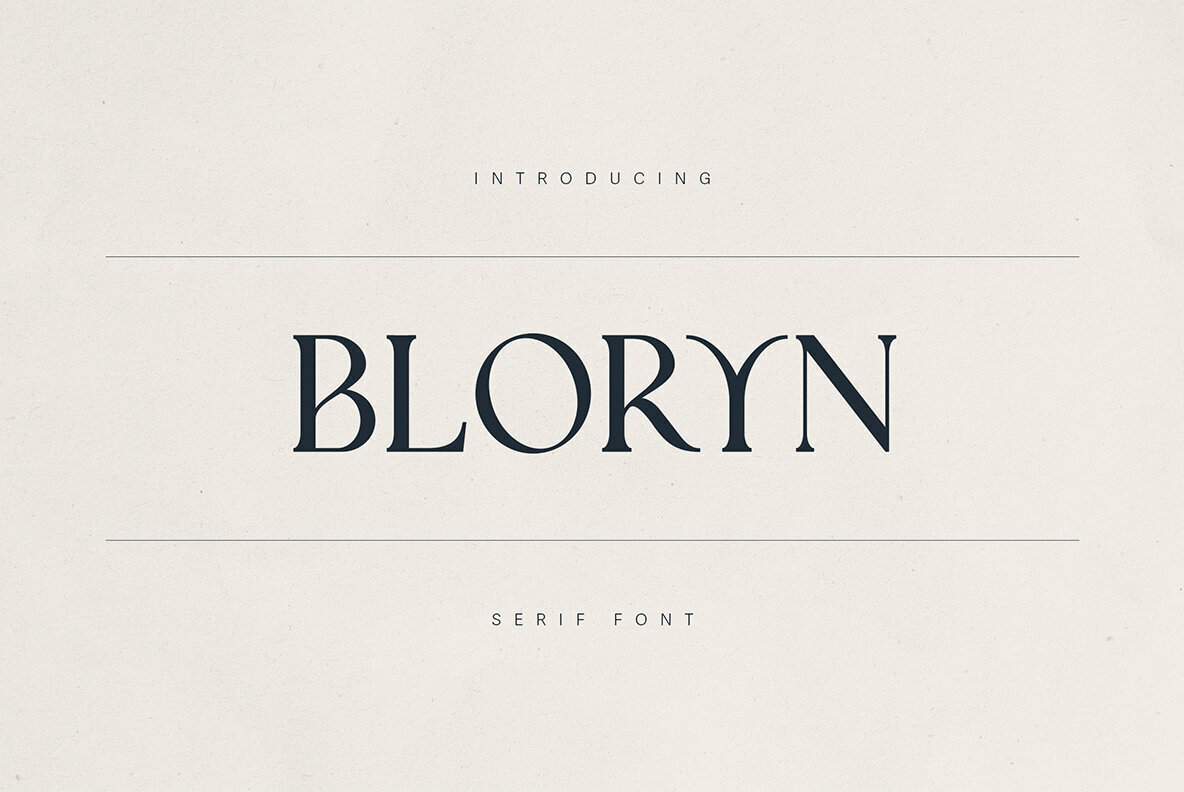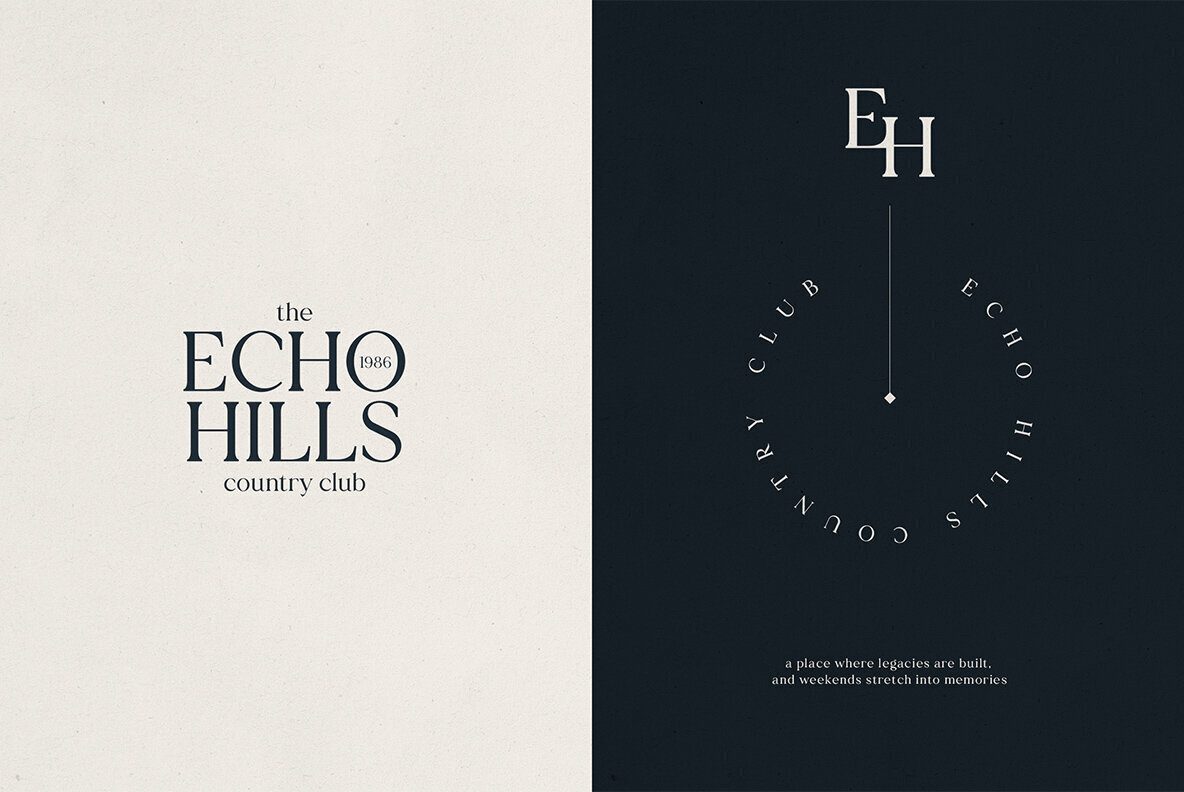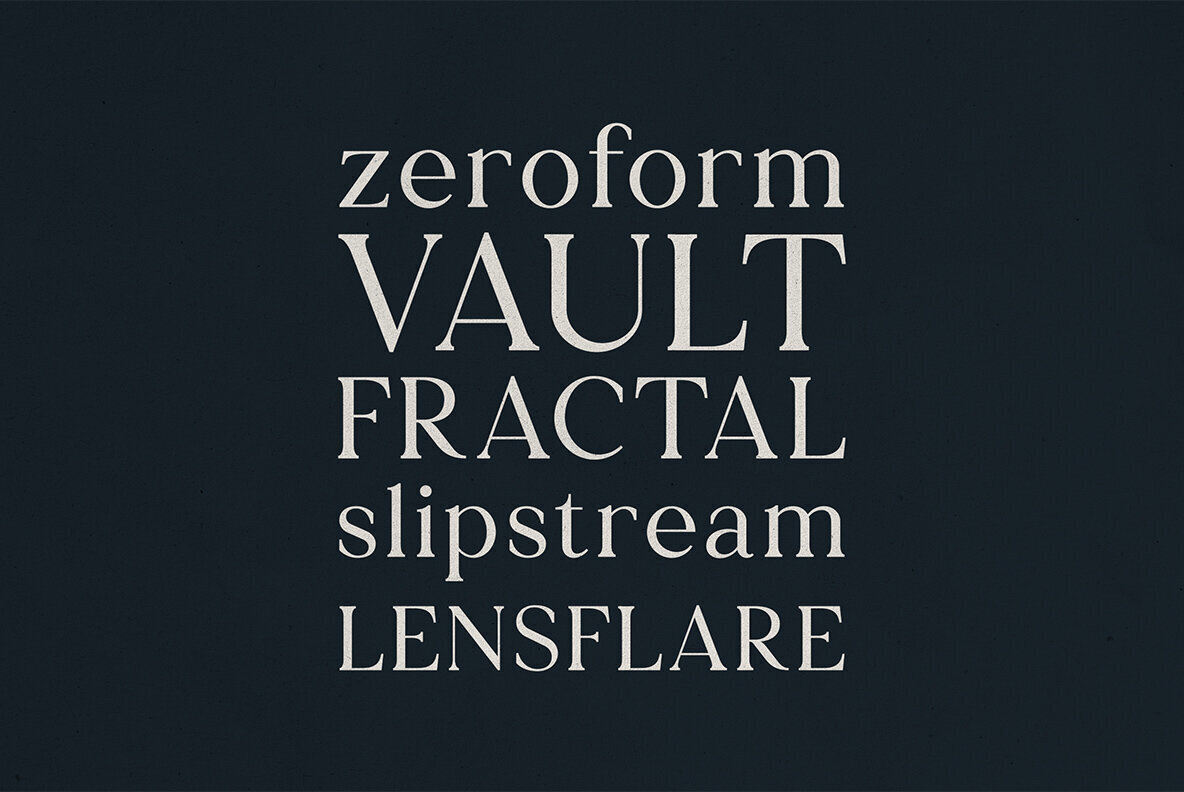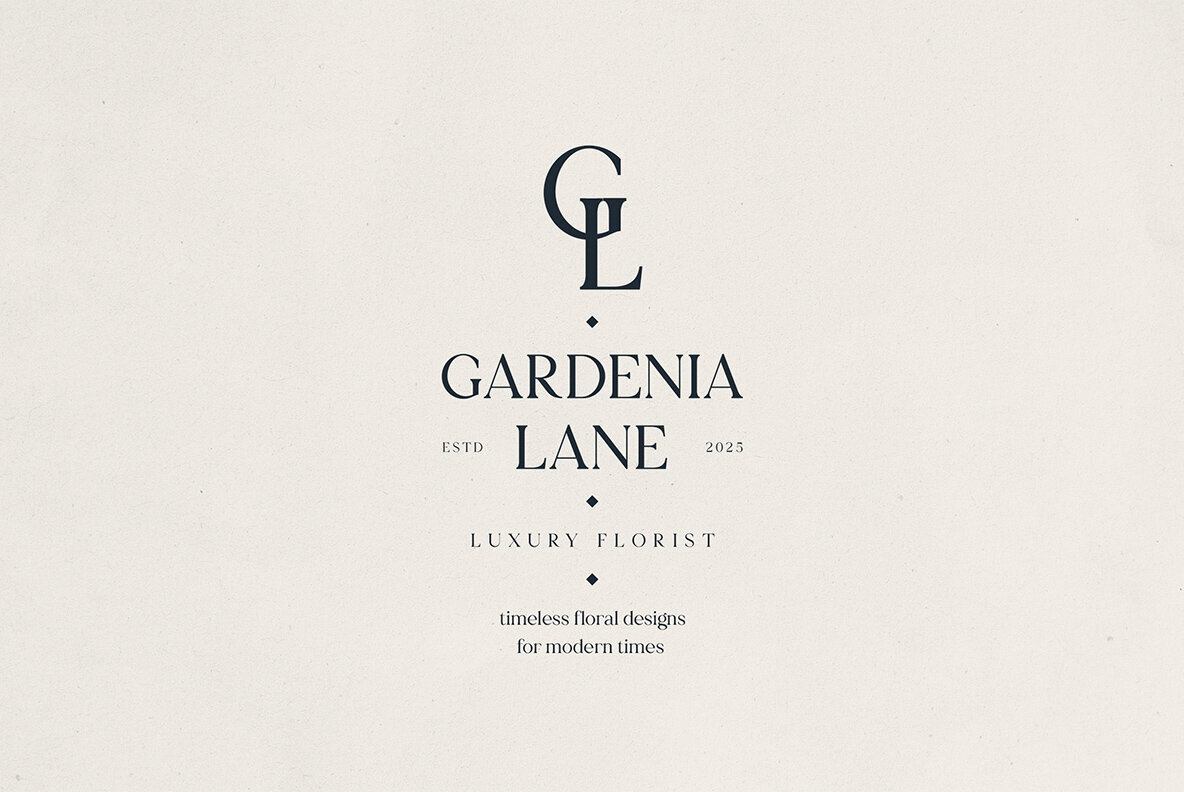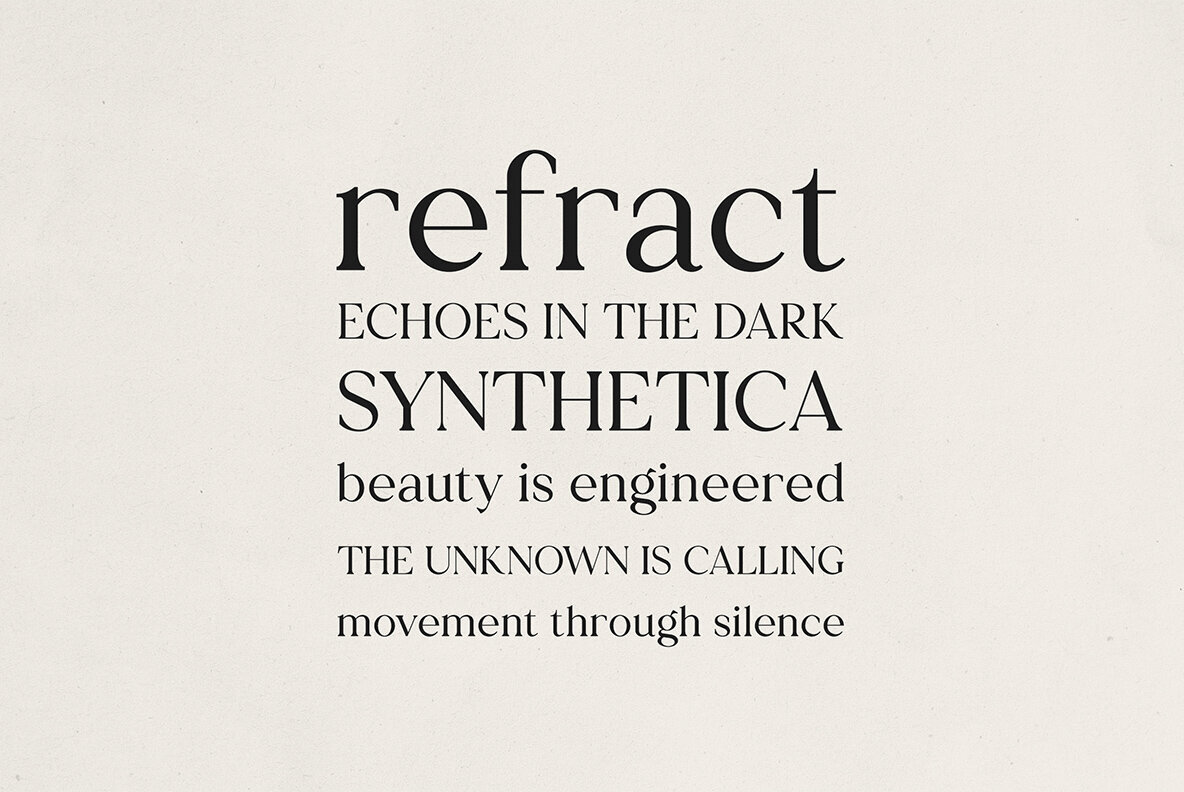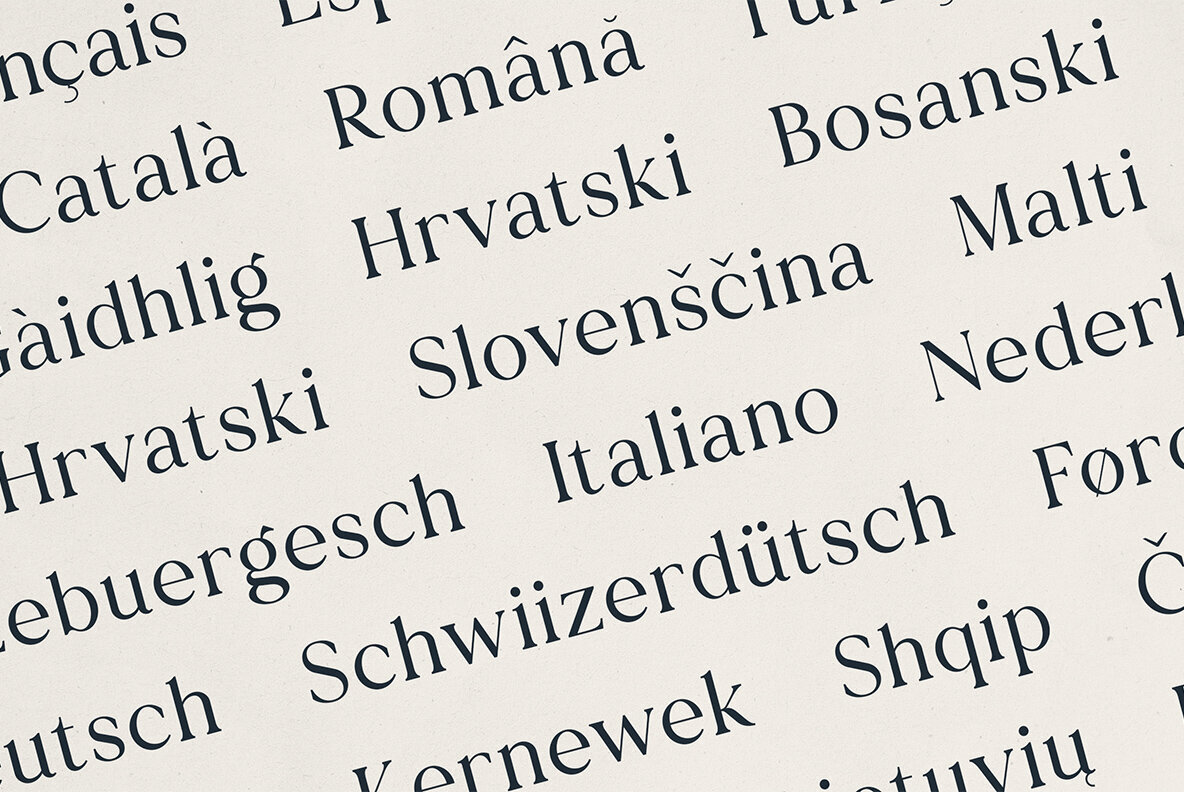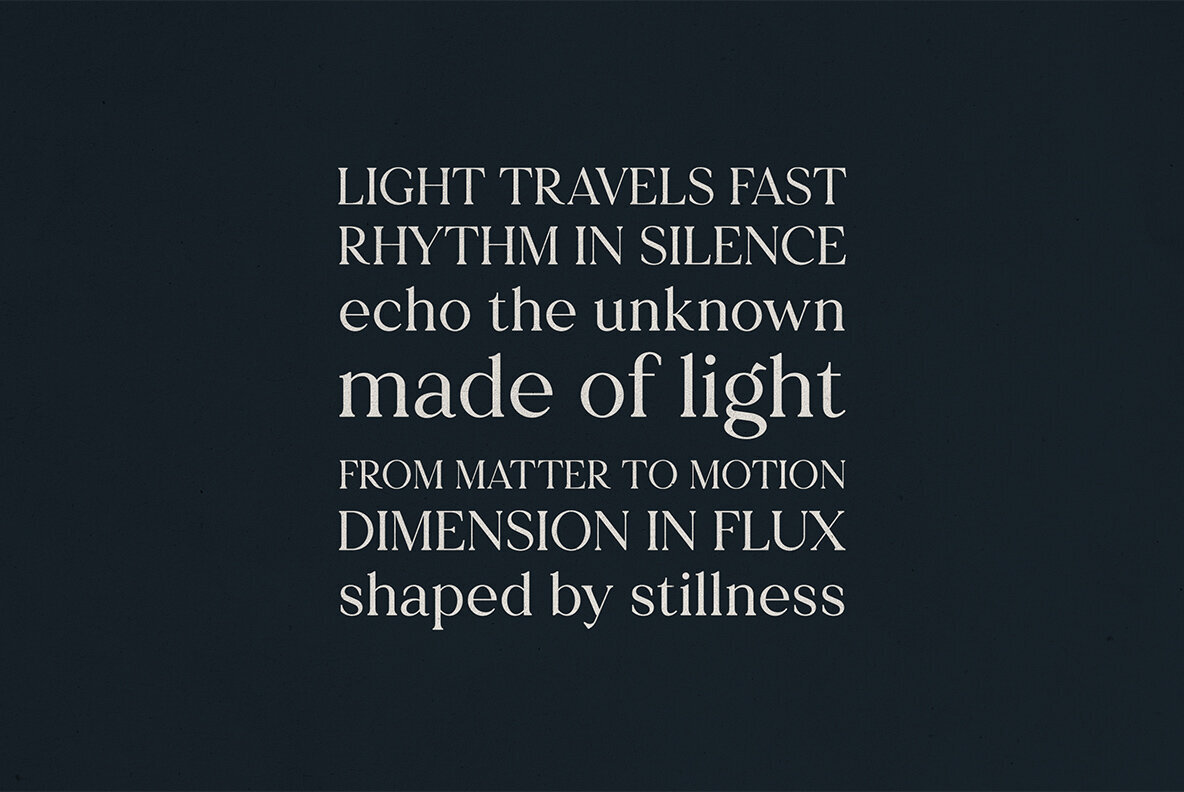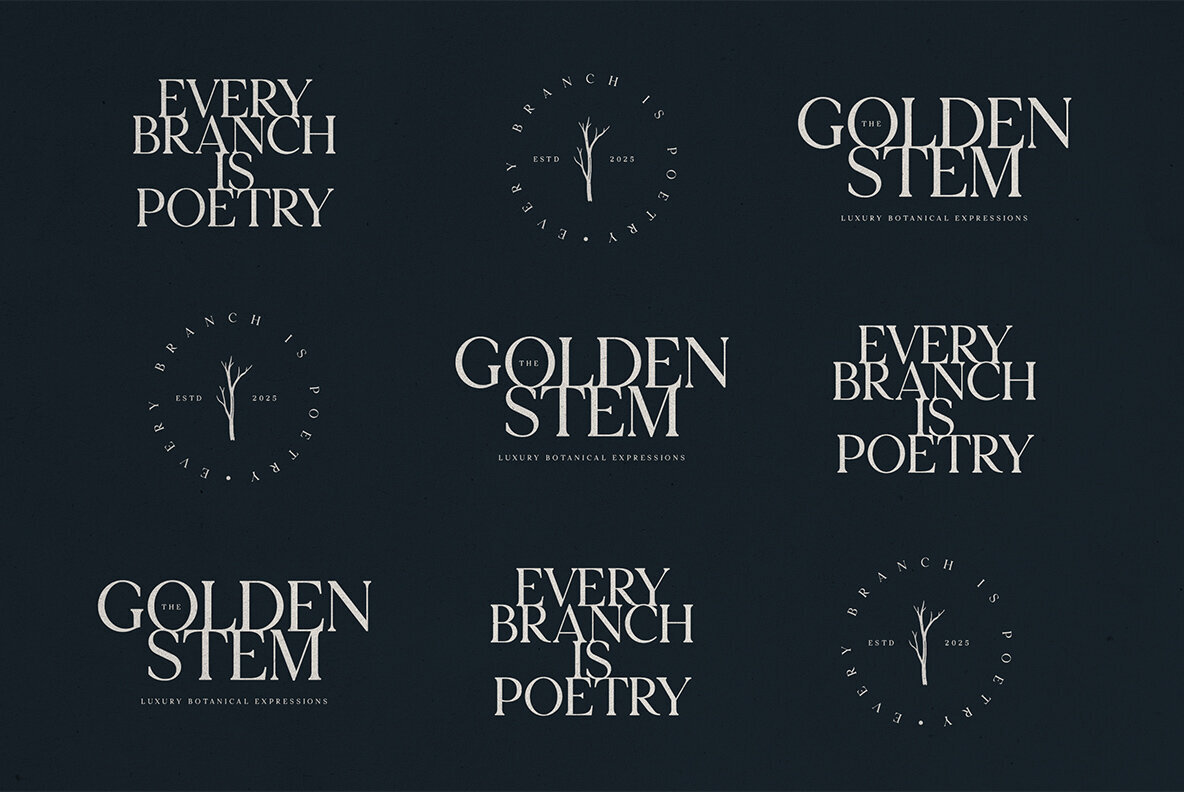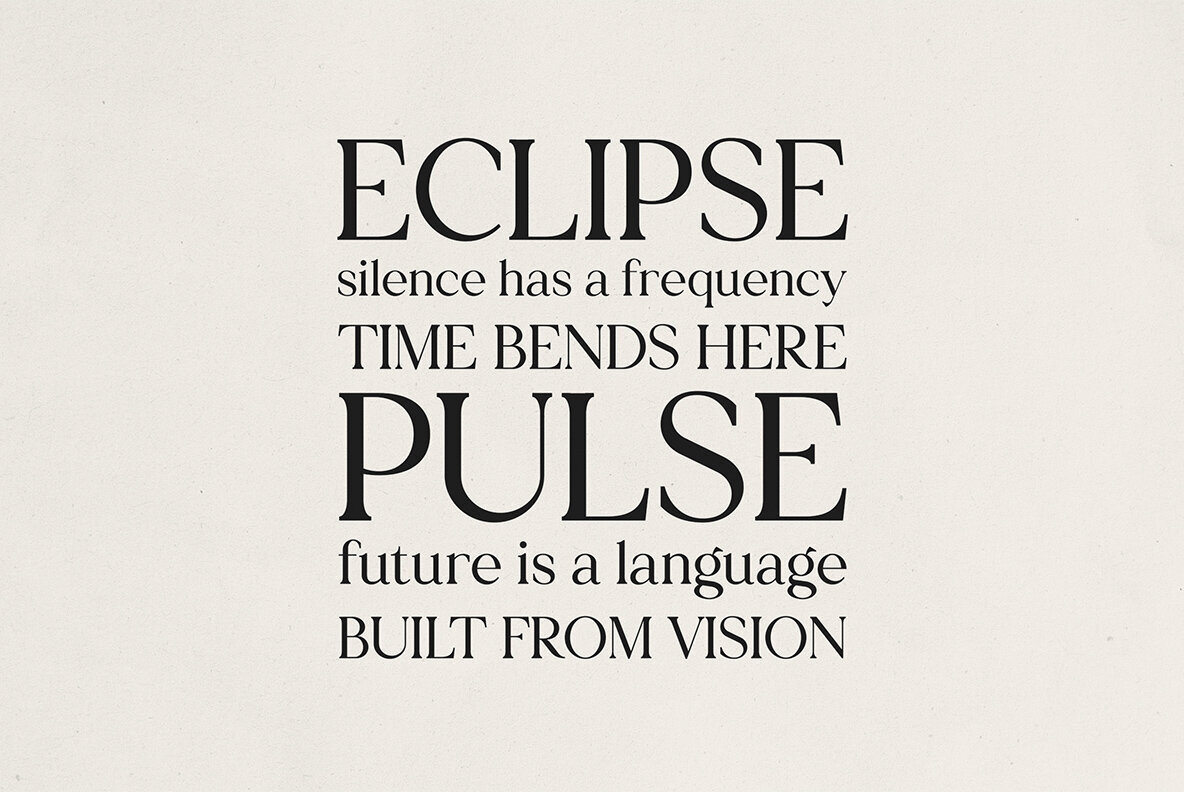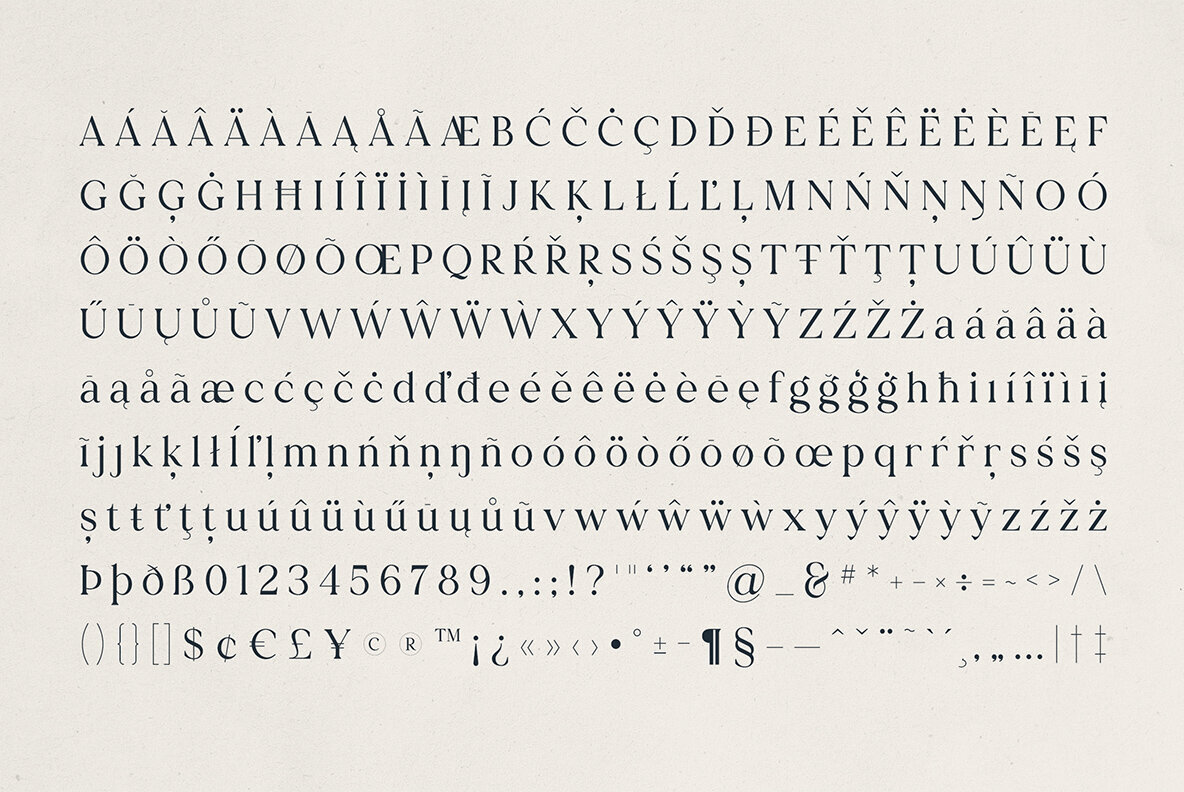
Bloryn Font
Bloryn
Bloryn is a high-contrast serif font that seamlessly merges classic elegance with contemporary curves, making it an ideal choice for luxury branding, editorial design, and compelling visual storytelling. Its versatility allows it to deliver both sophistication and readability, perfect for logos, headlines, packaging, and identity systems. With its beautifully sculpted letterforms, distinctive terminals, and refined stroke contrast, Bloryn stands out in both minimalist and ornate design settings. Whether you're crafting a premium brand or designing thoughtful digital content, Bloryn enhances your project with personality without overshadowing your message. Bring timeless charm and a modern edge to your next project with Bloryn— a font that communicates with poise and presence. It's the perfect choice for luxury fashion brands, boutique packaging, wedding designs, editorial spreads, lifestyle blogs, and high-end product visuals. Supports over 85 languages including Afrikaans, Albanian, Basque, Czech, Danish, Dutch, Finnish, French, German, Italian, Portuguese, Spanish, Swedish, Turkish, and many more.Bloryn: Elegance Redefined
Extensive Language Support